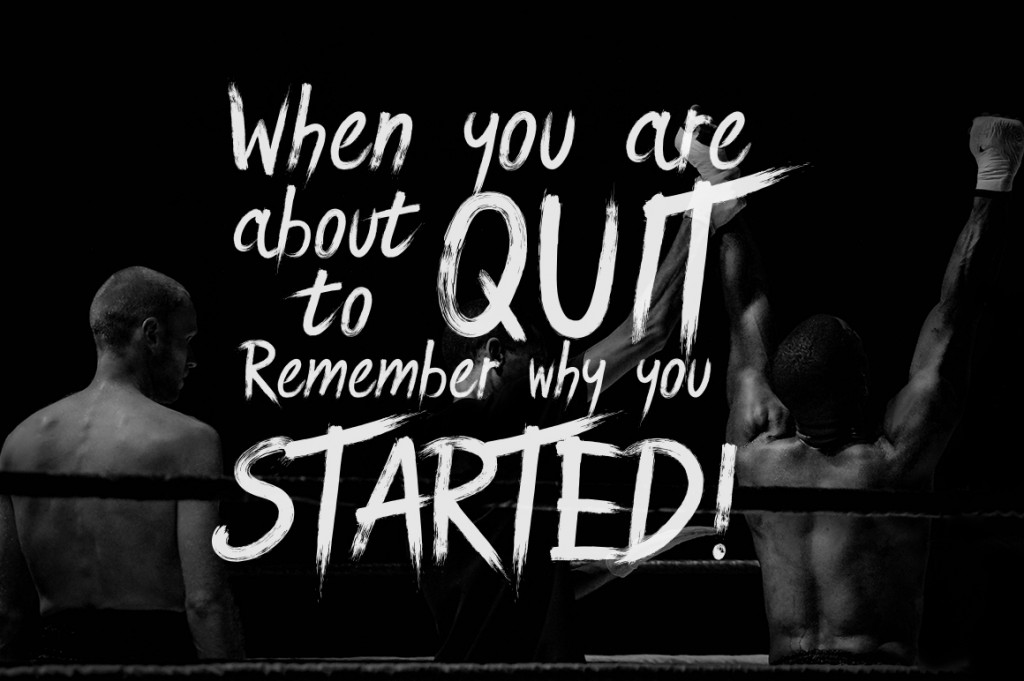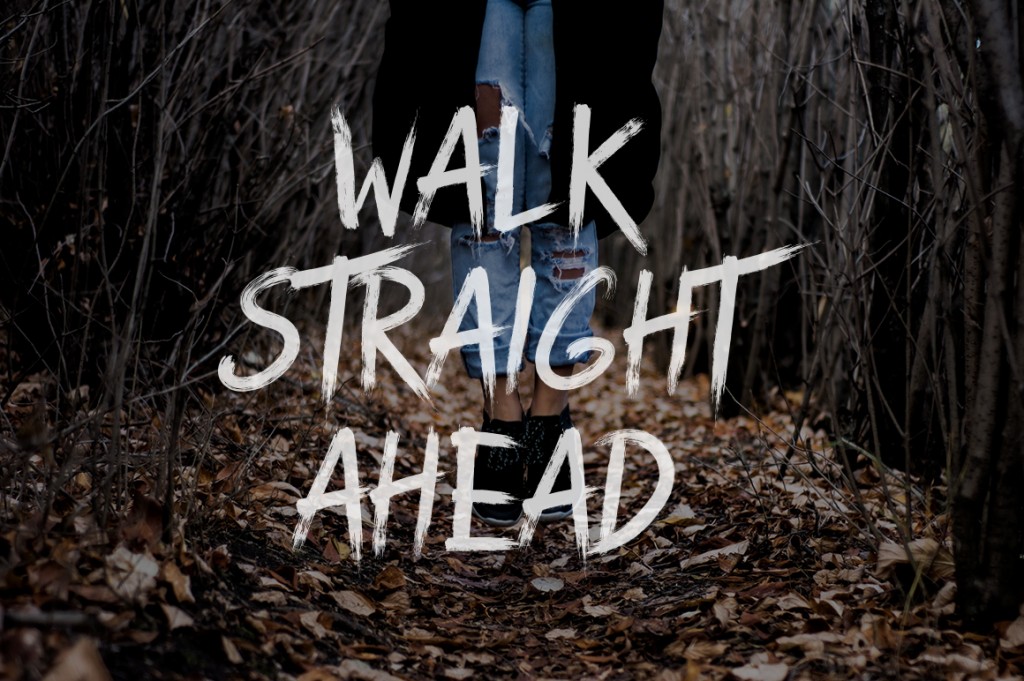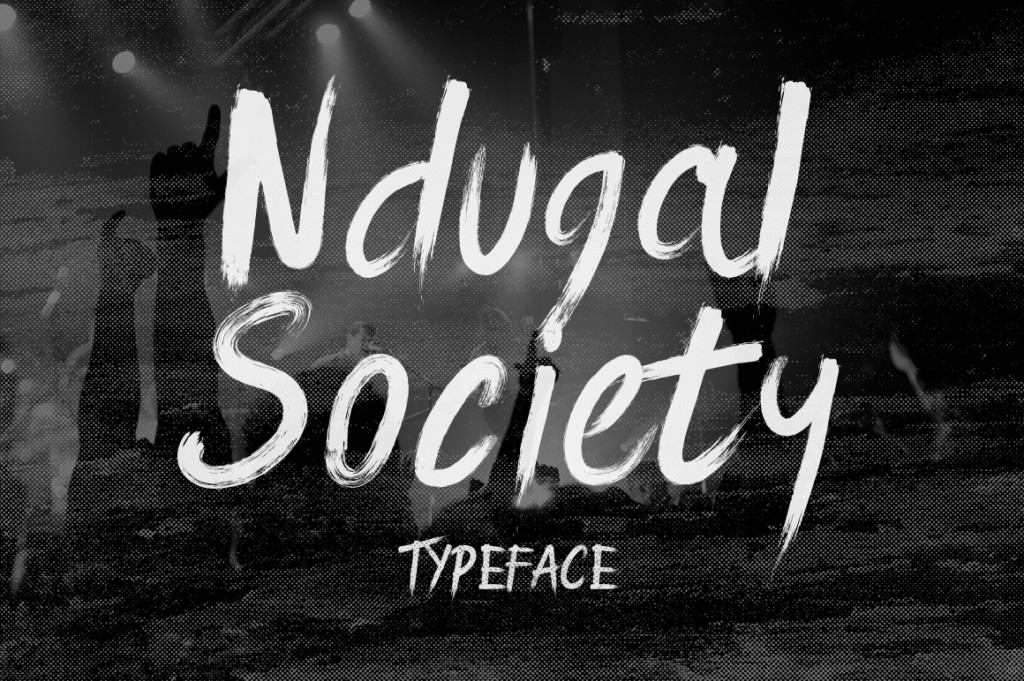
Ndugal Society Font
Ndugal Society is a handwriting typeface that make with natural ink. Uses for headline, poster, t-shirt, labels, clothing, film, gigs, album cover and much more.
| Classification: | Brush Fonts, Script Fonts |